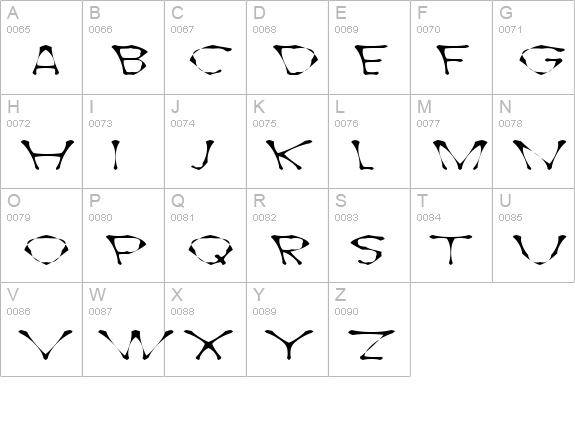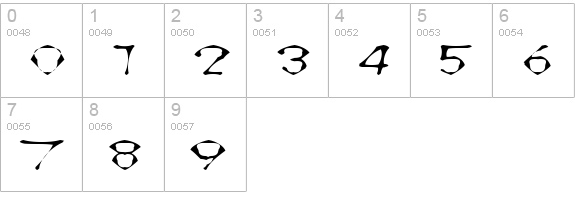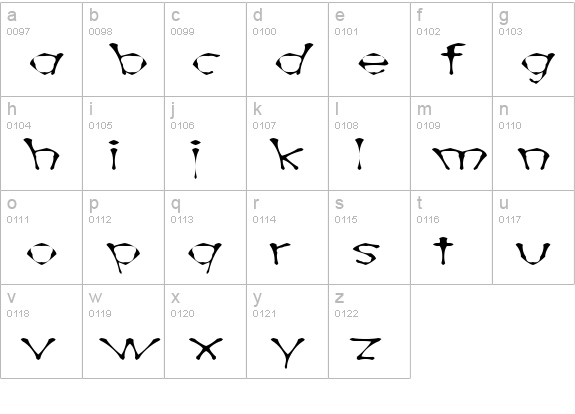
AwlScrawl Font Details
AwlScrawl font is a whimsical and playful typeface that exudes a sense of creativity and fun. With its hand-drawn style and unique character shapes, AwlScrawl is perfect for adding a touch of charm to any design project. Whether you're creating greeting cards, posters, or branding materials, this font will surely make your work stand out. What's even better is that AwlScrawl font is available for free download at FontsMarket.com. This means you can easily access this delightful typeface without having to spend a penny. So go ahead and unleash your creativity with AwlScrawl font today!